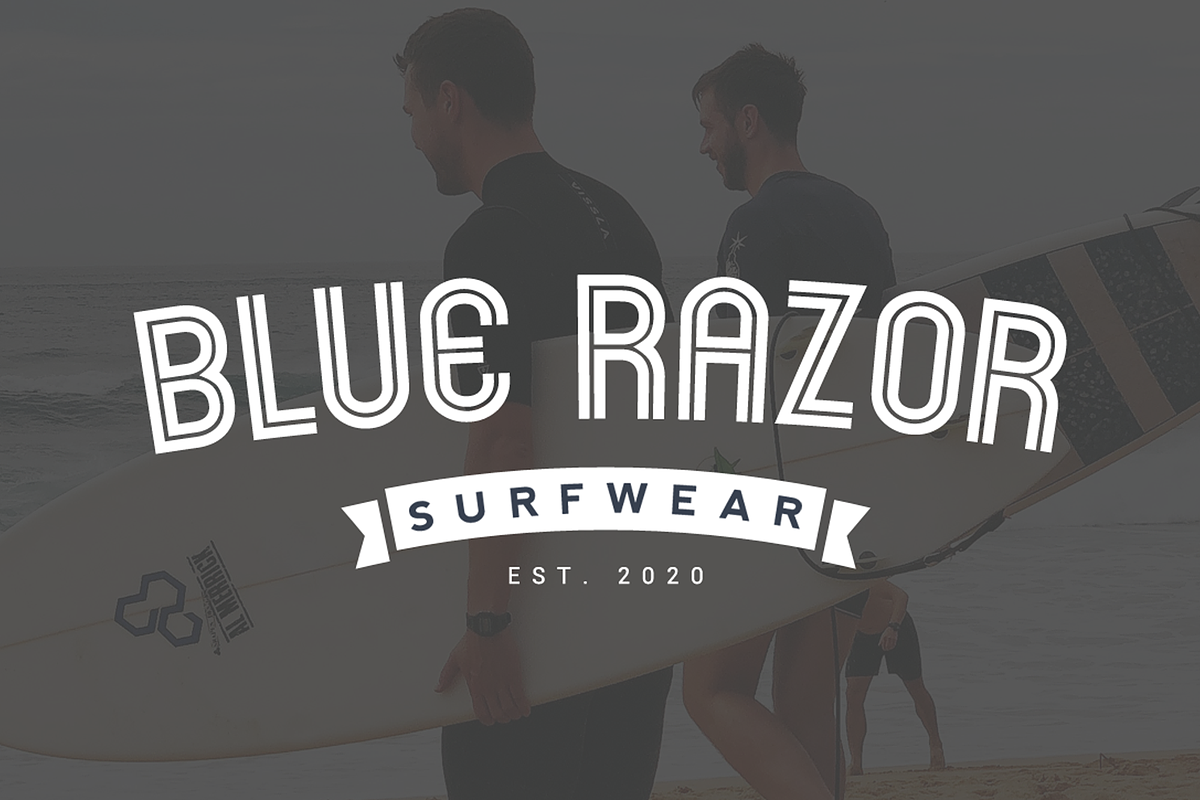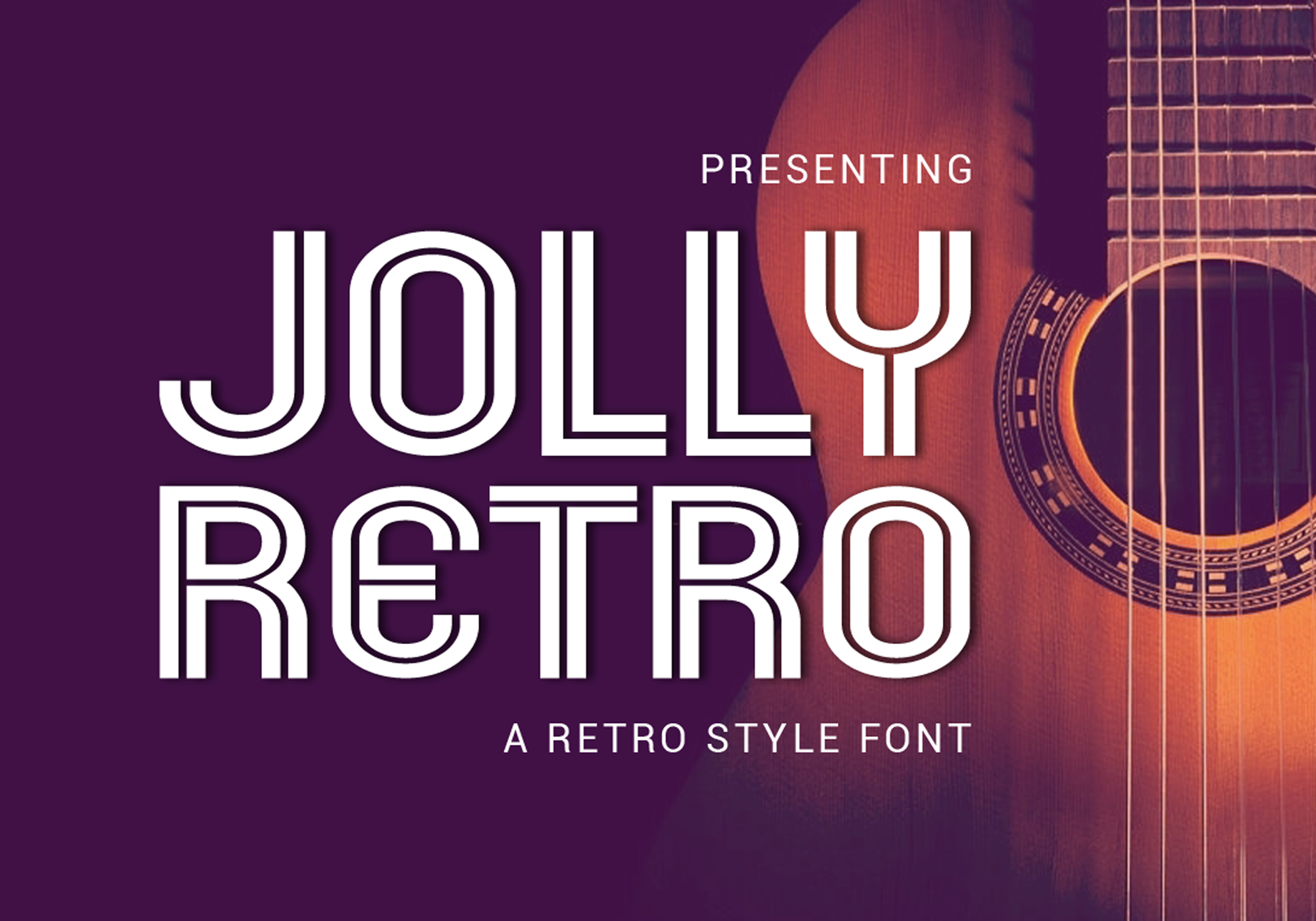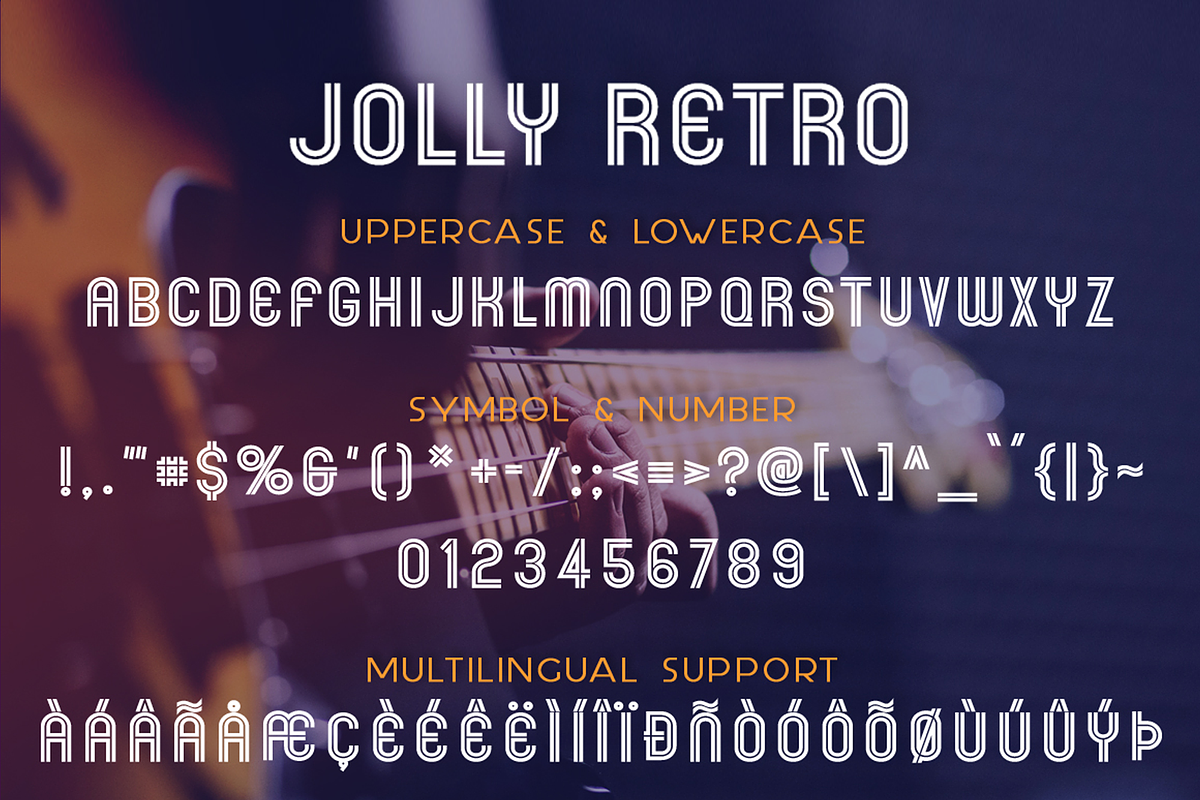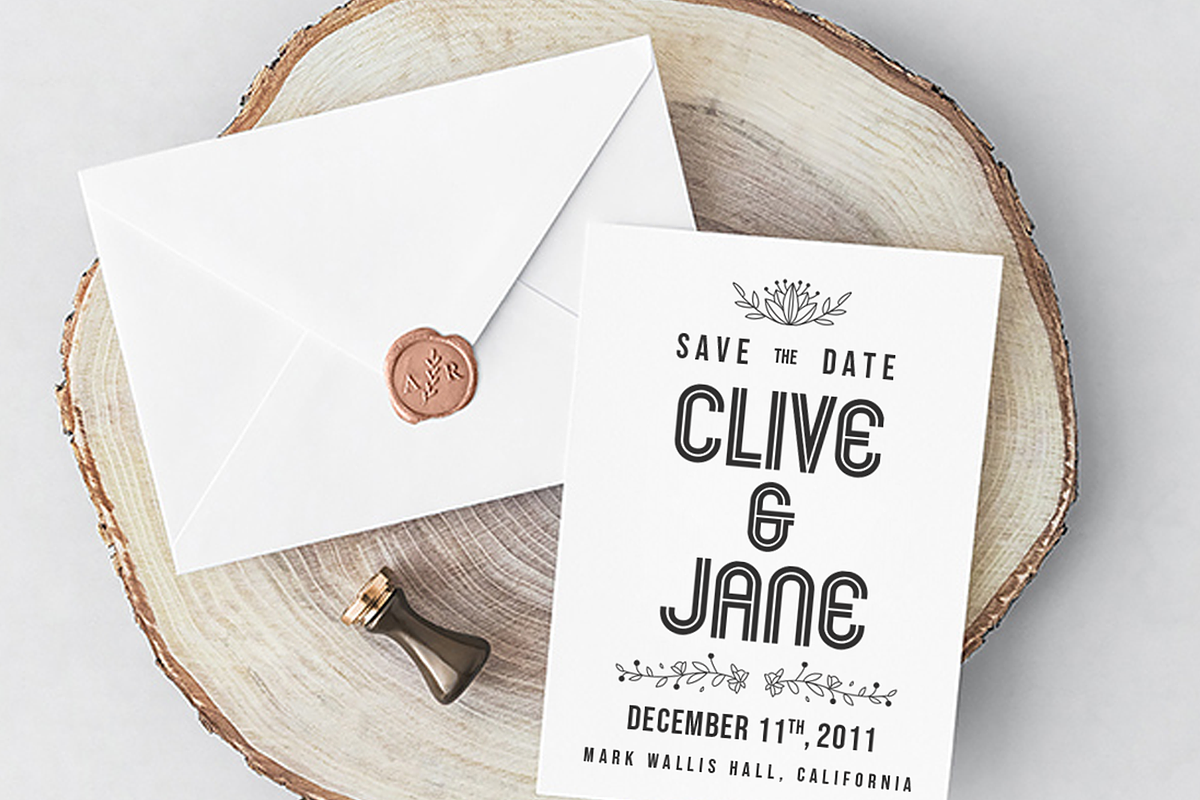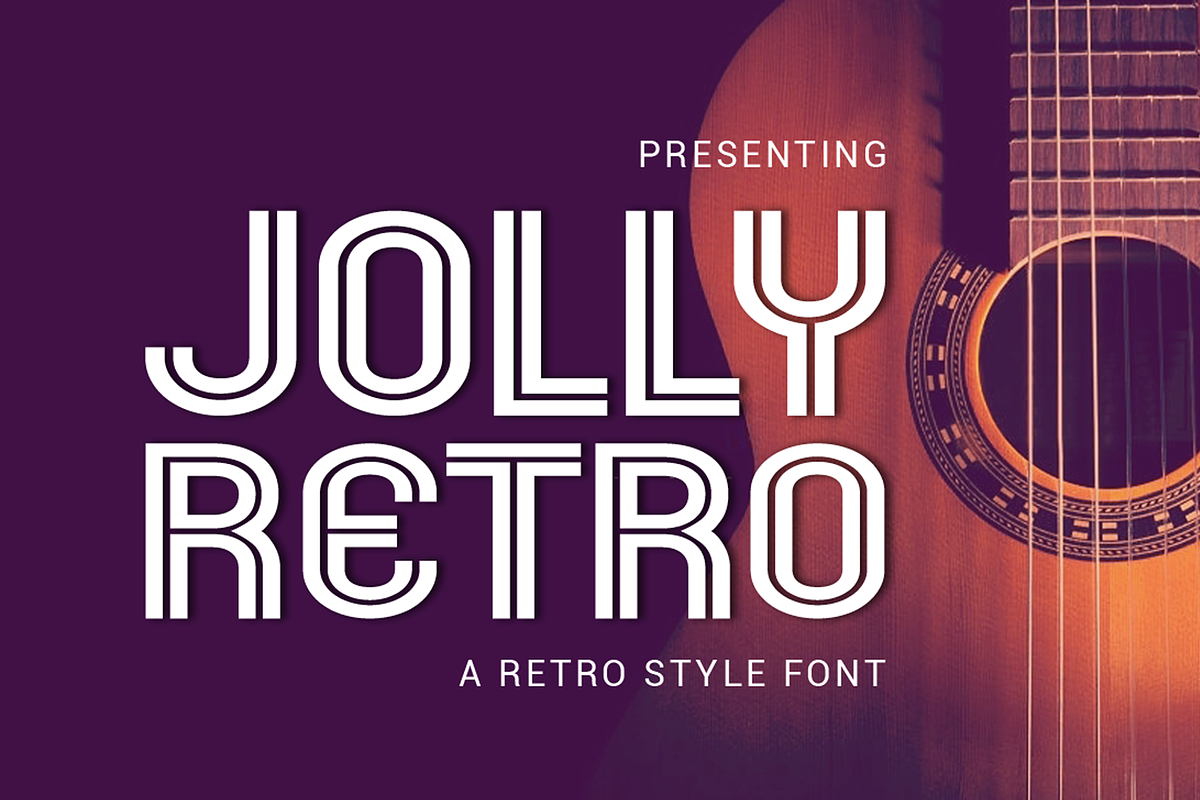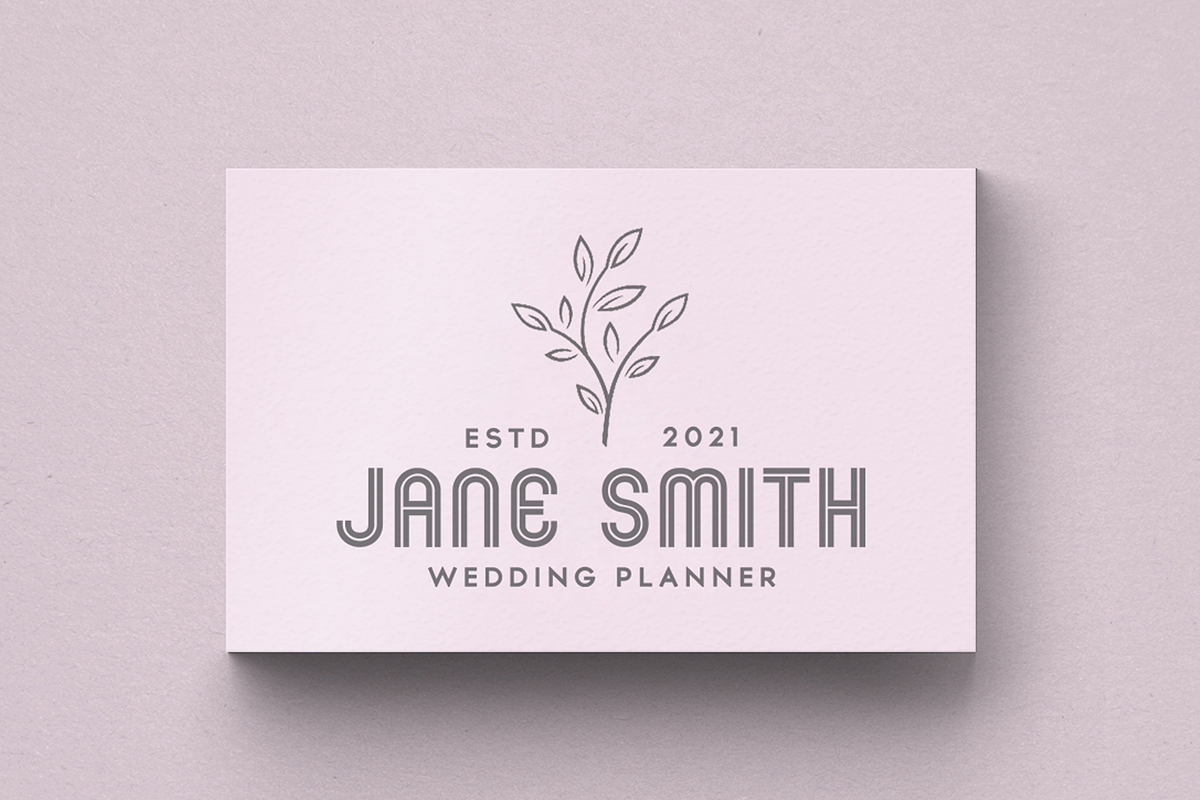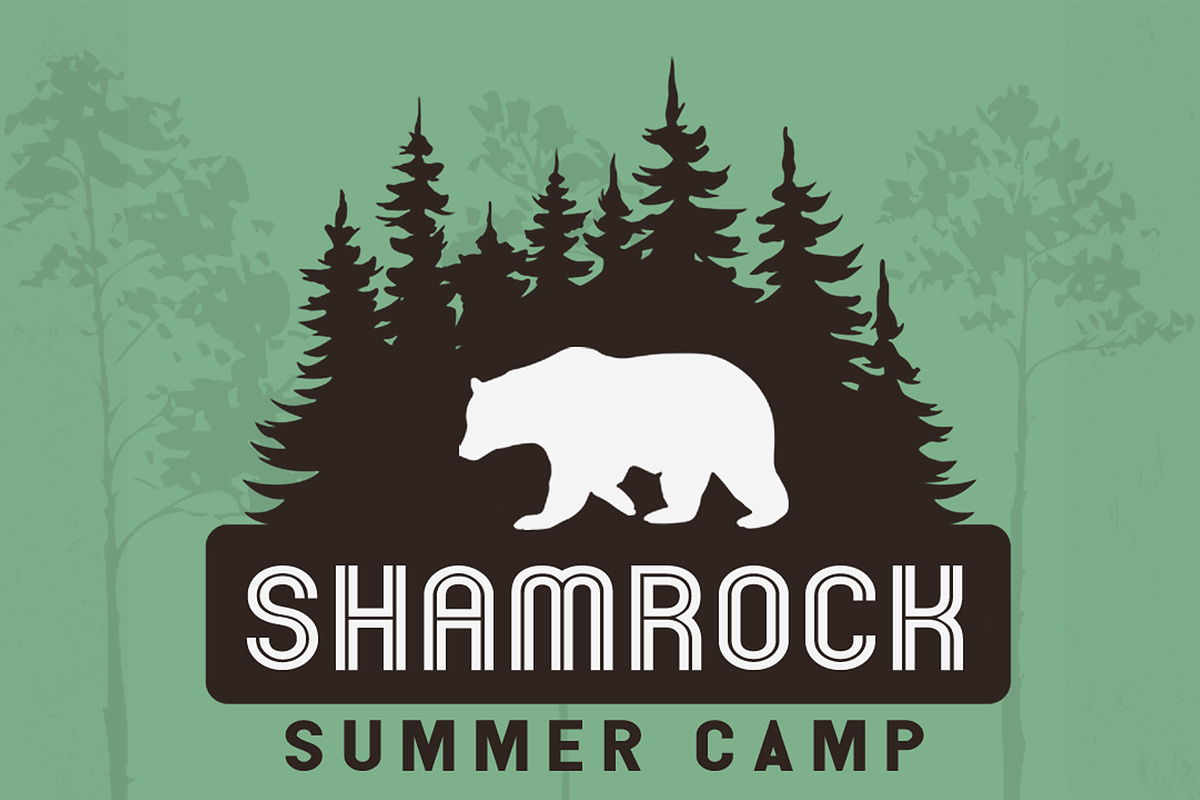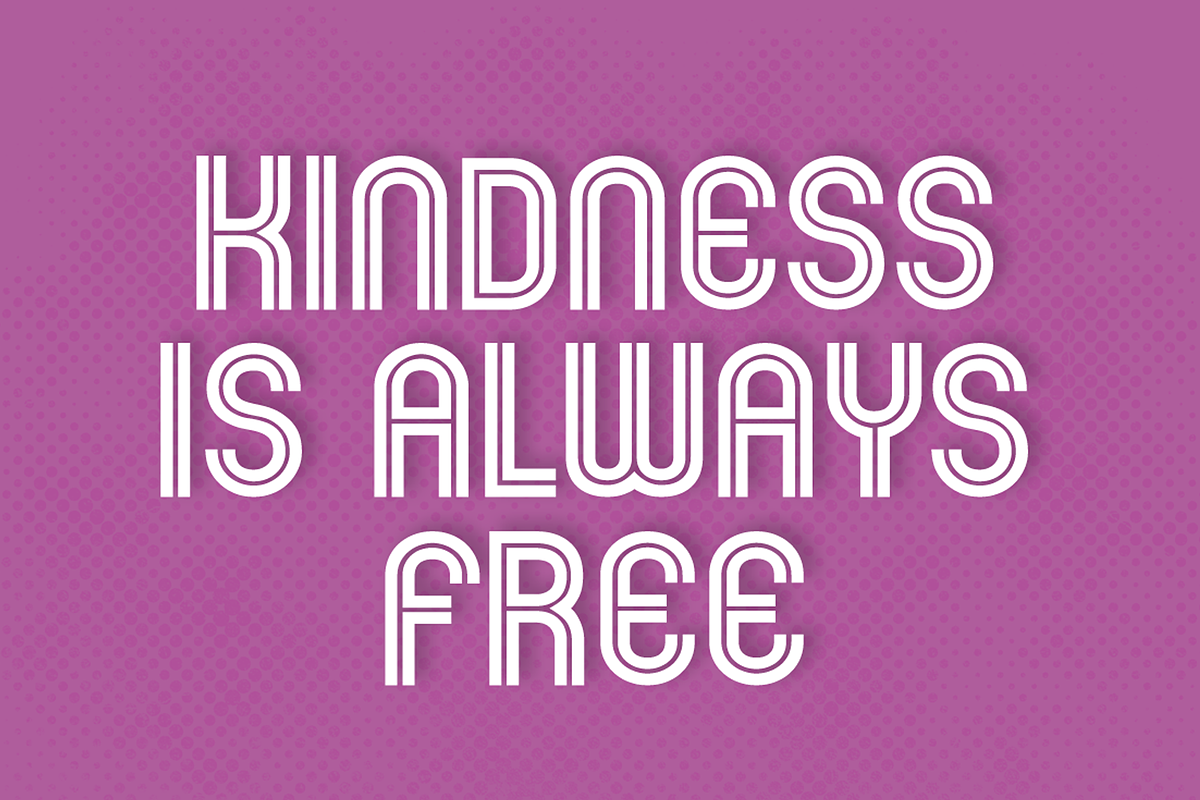
Jolly Retro – A Retro Style Font
Jolly Retro is a stylish retro font. This font looks awesome at display sizes and is easily readable in normal text size. Use Jolly Retro for headlines, posters, logo design, branding, magazine design, packaging, quotes, wedding invitations, and many other design projects.